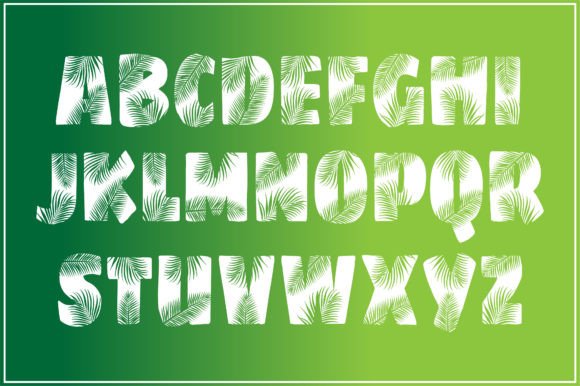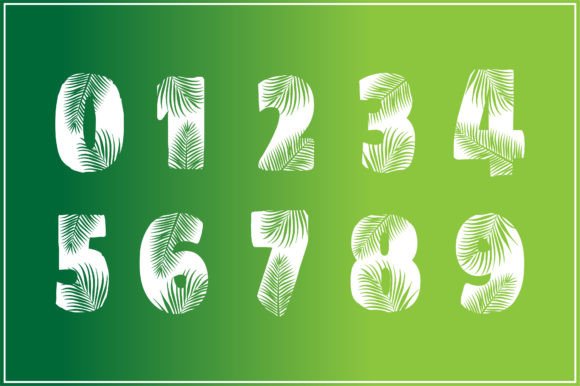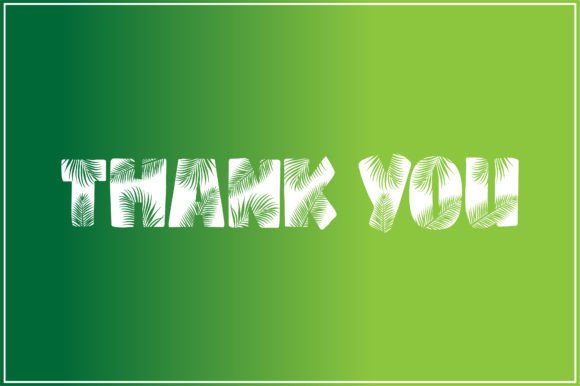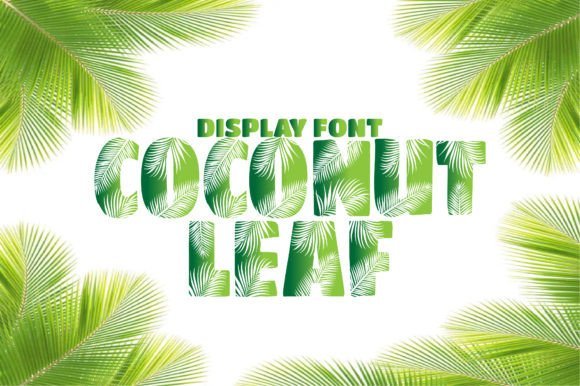
Introduction to Coconut Leaf Font
Coconut Leaf is a and dramatic decorative font.
It is perfectly suitable for any design or crafty idea Add it confidently to your projects and you will love the results.
Coconut Leaf Font offers exceptional quality and versatility, making it a valuable addition to your design toolkit. Whether you’re creating for personal projects or commercial use, Coconut Leaf Font delivers professional results.